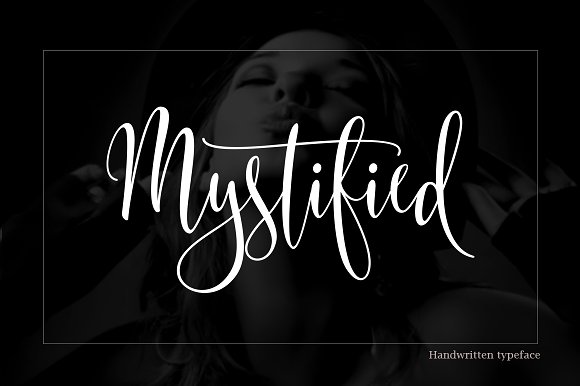
Welcome to the world of Mystified, a script font family like no other. Its beautiful and unique interconnected aesthetic will add a touch of magic to any project. Whether you're a seasoned designer or just starting out, Mystified will make your creations shine.
With Mystified, you'll capture the attention of your audience. Its carefully crafted characters dance and flow together, creating a visual masterpiece that will leave a lasting impression. No matter the context, Mystified will elevate your designs to new heights.
Imagine crafting wedding invitations that embody elegance and love, or designing social media posts that pop with personality. Mystified will seamlessly adapt to your creative vision, adding an enchanting touch that will make your work stand out.
Byuly Ayika, the creative genius behind Mystified, has poured their heart and soul into every letterform. Each stroke and curve has been meticulously designed to create a font that's both captivating and versatile. Don't miss this opportunity to add Mystified to your design toolkit and unleash your imagination.
Mystified is your key to unlocking endless design possibilities. Let its interconnected letters weave their magic into your creations and experience the joy of font artistry. Don't settle for ordinary - embrace the allure of Mystified today!